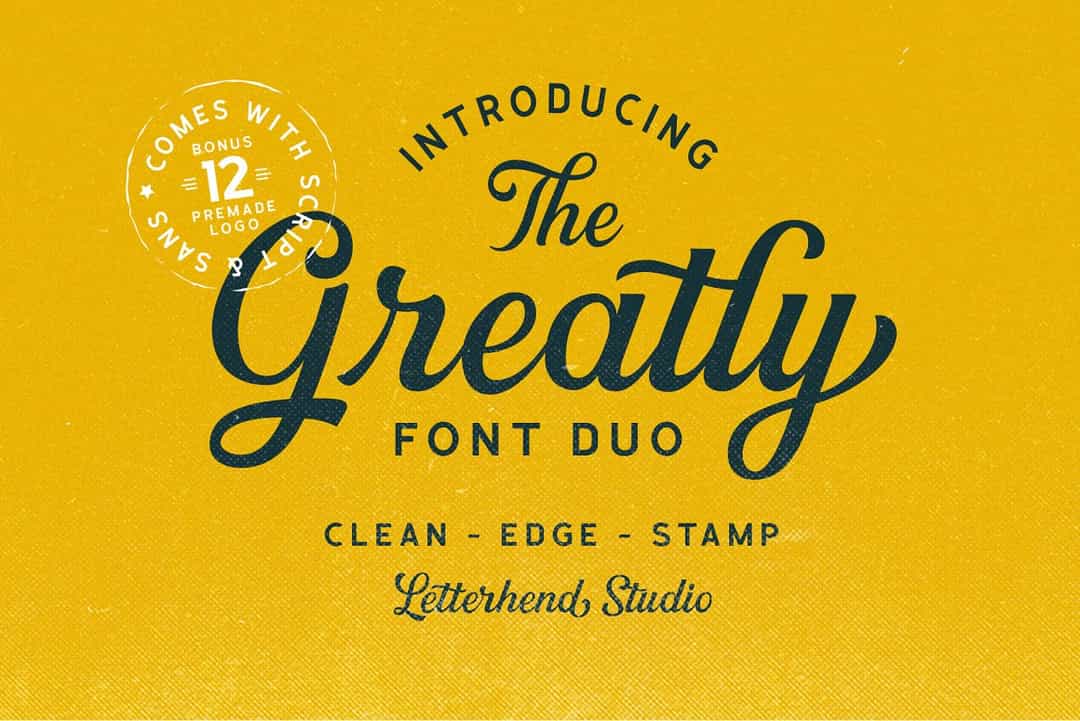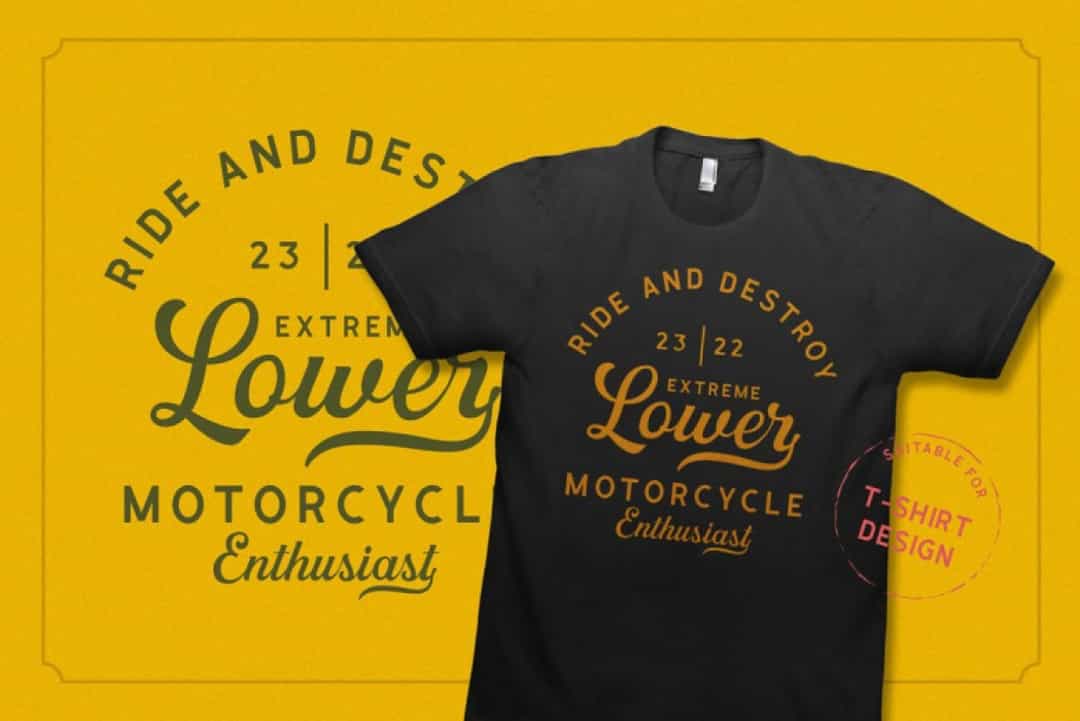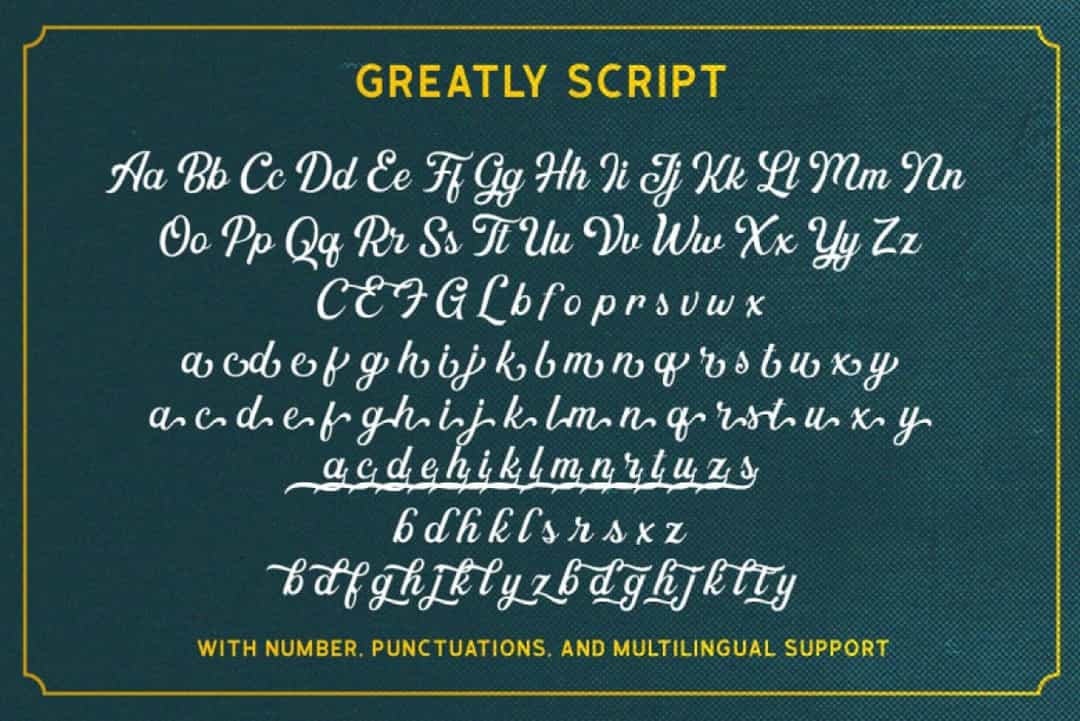
Greatly Font Duo can be described as a perfect pair of sans and script fonts that complement each other perfectly, which will add a touch of sophistication and timeless beauty to your projects, perfect for logotypes, apparels, invitations, packaging, branding, advertising and more. It has all the usual punctuation symbols in both lower and upper case, numerals, ligatures – and multilingual support to boot! PUA encoded!